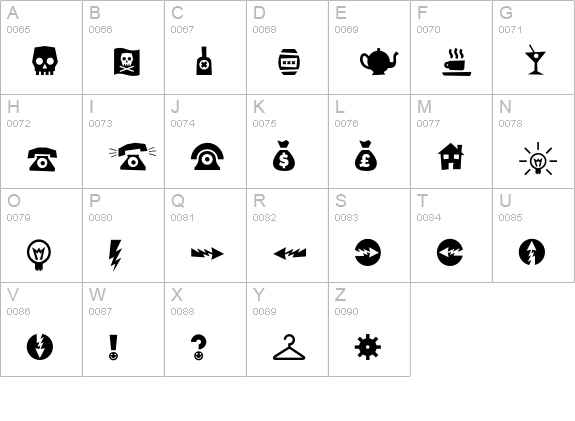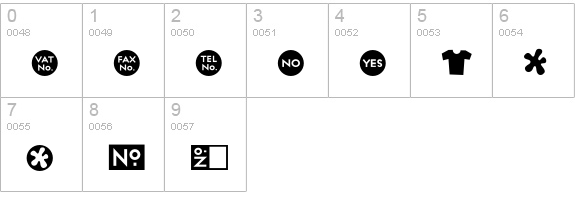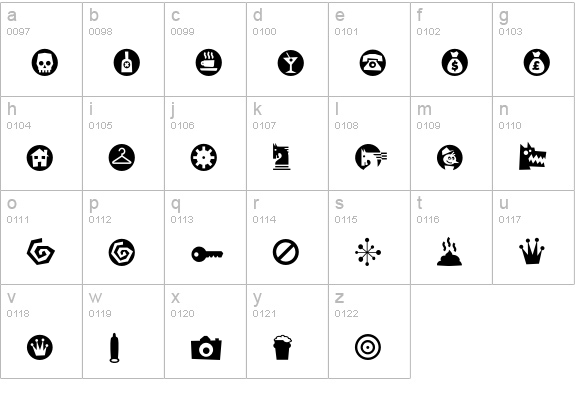
RiansDingbats-Four Font Details
Introducing RiansDingbats-Four, a captivating and versatile font that is sure to add a touch of whimsy and creativity to any project. This unique dingbats font boasts a wide range of playful and intricate symbols, making it perfect for adding decorative elements, embellishments, or even creating your own custom icons. With its meticulously crafted design, RiansDingbats-Four exudes a sense of charm and elegance that will surely captivate the attention of your audience. Each symbol is thoughtfully created with attention to detail, ensuring that every stroke and curve is beautifully executed, resulting in a visually stunning collection of characters. But what truly sets RiansDingbats-Four apart is that it is not only visually appealing, but also incredibly convenient to use. This font is compatible with various design software and applications, allowing you to effortlessly incorporate it into your projects. Whether you're designing a logo, creating invitations, or adding a unique touch to your social media posts, RiansDingbats-Four will quickly become your go-to font for all your decorative needs. And the best part? RiansDingbats-Four is absolutely free! That's right, you can download this exceptional font without spending a single penny. Simply head over to FontsMarket.com, the trusted source for high-quality fonts, and grab your copy of RiansDingbats-Four today. Don't miss out on this opportunity to enhance your designs with a stunning and freely available font. So, why wait? Elevate your design game and let your creativity soar with RiansDingbats-Four. Download it now and unlock a world of possibilities for your next project.